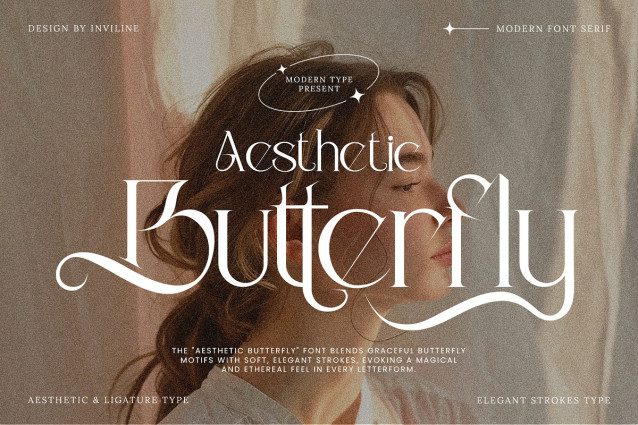
Butterfly Serif Typeface
Butterfly Serif Typeface Bring a touch of Elegant and Beauty to your designs with this meticulously crafted font collection. Perfect for adding a Aesthetic vibes to your branding, packaging, logos, and more.